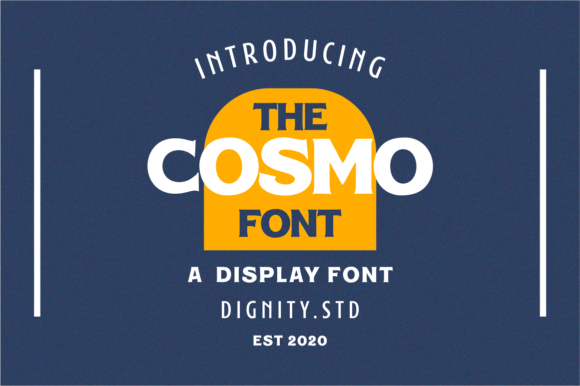
Cosmo Font: Elevate Your Designs with a Cool, Bold Display Font
Are you tired of using the same old fonts in your designs? Look no further than Cosmo Font, a cool, bold looking display font that’s sure to take your creations to the next level. Whether you’re a designer, craft, or simply someone who loves to dabble in graphic design, Cosmo Font is an incredibly valuable asset to have in your font library.
The Versatility of Cosmo Font
One of the best things about Cosmo Font is its versatility. No matter the topic or theme of your design, Cosmo Font is sure to fit right in. Whether you’re creating a bold and edgy design or something more elegant and refined, Cosmo Font has the potential to elevate any creation. Its unique blend of cool, bold lines and stylish curves makes it the perfect font for a wide range of design applications.
Key Features of Cosmo Font
So, what makes Cosmo Font so special? Here are just a few of its key features:
- Cool and Bold Design: Cosmo Font has a unique, eye-catching design that’s sure to grab attention. Its bold lines and stylish curves make it the perfect font for creating striking headings and titles.
- Highly Versatile: Whether you’re designing a website, brochure, or social media graphic, Cosmo Font is sure to fit right in. Its versatility makes it a valuable asset to have in your font library.
- Easily Readable: Despite its bold design, Cosmo Font is surprisingly easy to read. This makes it perfect for use in a wide range of design applications, from body text to headings and titles.
Using Cosmo Font in Your Designs
So, how can you use Cosmo Font in your designs? The possibilities are endless! Here are a few ideas to get you started:
- Headings and Titles: Cosmo Font is perfect for creating bold, eye-catching headings and titles. Use it to add a touch of personality to your designs and make them stand out from the crowd.
- Logos and Branding: If you’re creating a logo or branding materials, Cosmo Font is a great choice. Its unique design makes it perfect for creating memorable, eye-catching logos that will help your brand stand out.
- Social Media Graphics: Cosmo Font is also great for social media graphics, such as Facebook posts, Instagram stories, and Twitter headers. Its bold design is sure to grab attention and help your content stand out in a crowded feed.
Why Choose Cosmo Font?
So, why choose Cosmo Font over other display fonts on the market? Here are just a few reasons:
- Unique Design: Cosmo Font has a unique, eye-catching design that’s sure to make your designs stand out from the crowd.
- High-Quality: Cosmo Font is a high-quality font that’s designed to look great in any design application.
- Easily Customizable: Cosmo Font is easily customizable, making it perfect for use in a wide range of design applications.
| Font Name | Cosmo Font |
| Author | dignity.std |
In conclusion, Cosmo Font is a cool, bold looking display font that’s sure to elevate any creation. Its versatility, unique design, and high-quality make it a valuable asset to have in your font library. Whether you’re a designer, craft, or simply someone who loves to dabble in graphic design, Cosmo Font is a great choice for any design project. So why wait? Download Cosmo Font today and start taking your designs to the next level!